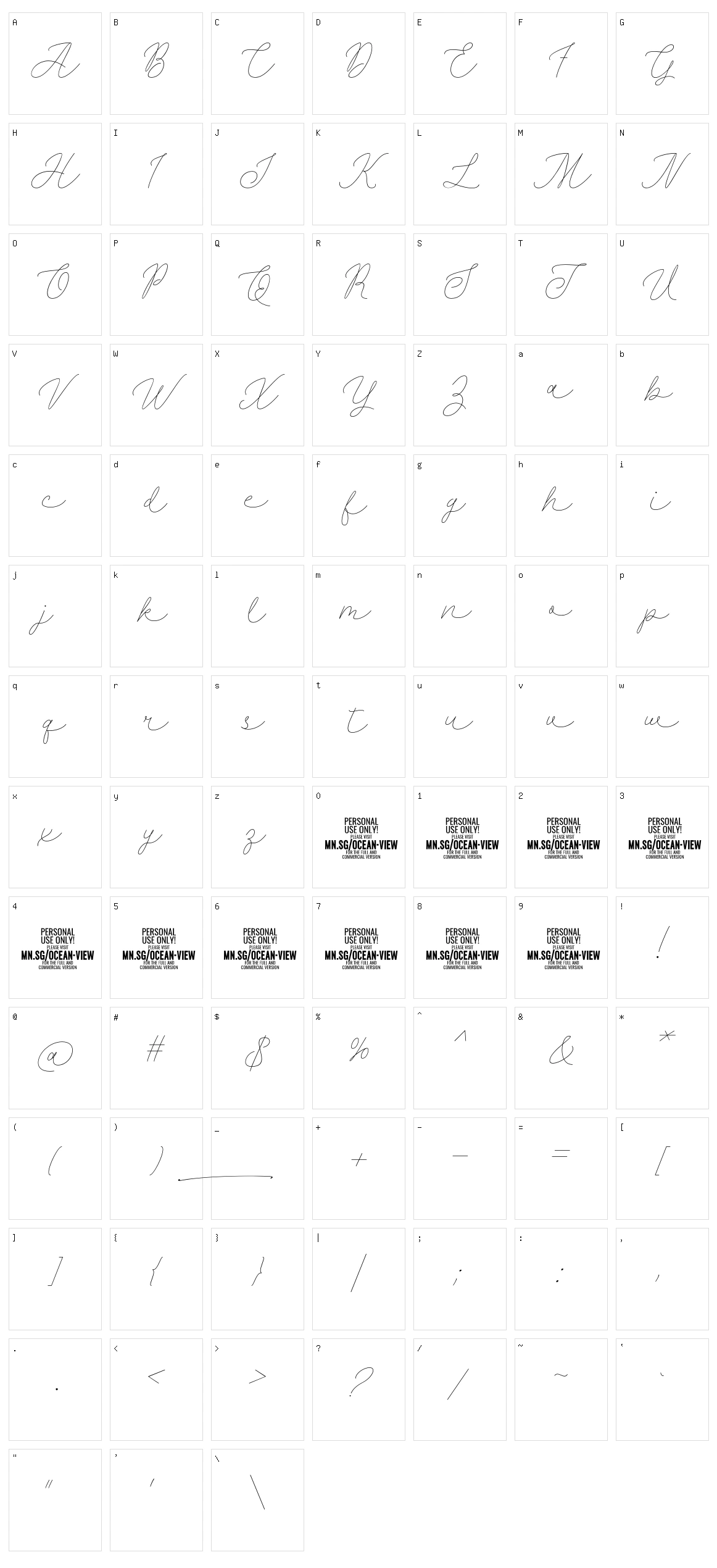
Ocean View is a beautiful handwriting lettering.
This script typeface is cute and feminine, optimized for a modern signature logotype with a genuine craft style.
Its monolined strokes and hand drawn letterforms emits optimism and lightheartedness.
Use underscore _ to make a swash.
Example: Cle_arly
Use multiple underscores to make different swashes.
Example: Super__________star
The Ocean View family consists of five high-quality cursive fonts:
Thin, Light, Regular, Bold and Black
The font is built with advanced OpenType functionality and has a guaranteed top-notch quality, containing stylistic and contextual alternates, ligatures and more features; all to give you full control and customizability.
It has extensive lingual support, covering all Latin-based languages, from Northern Europe to South Africa, from America to South-East Asia.
It contains all characters and symbols you'll ever need, including all punctuation and numbers.